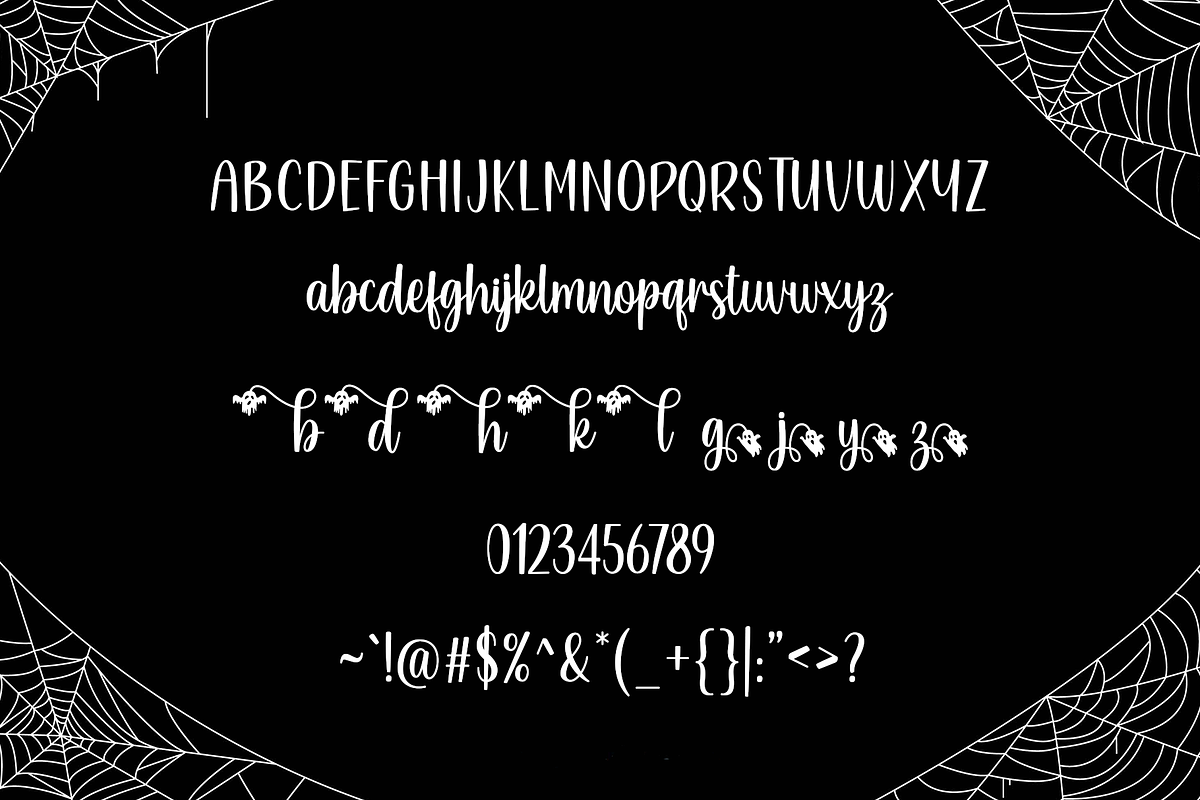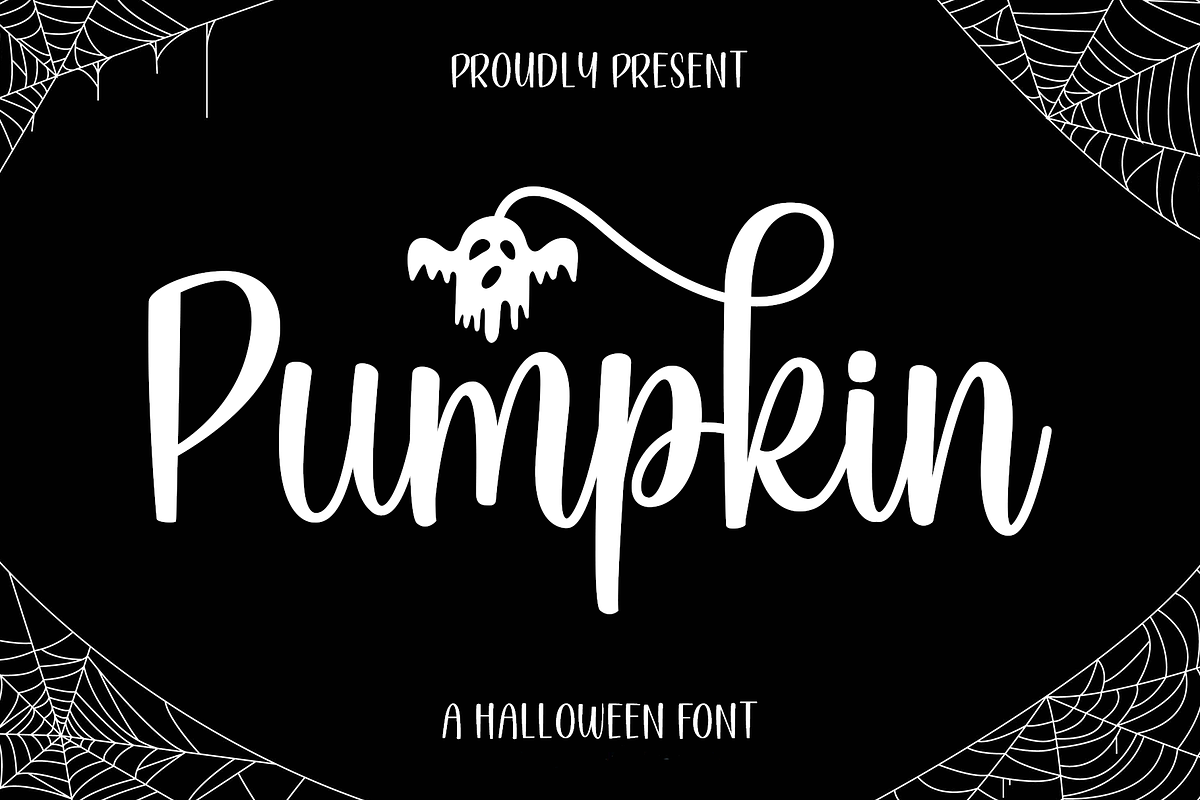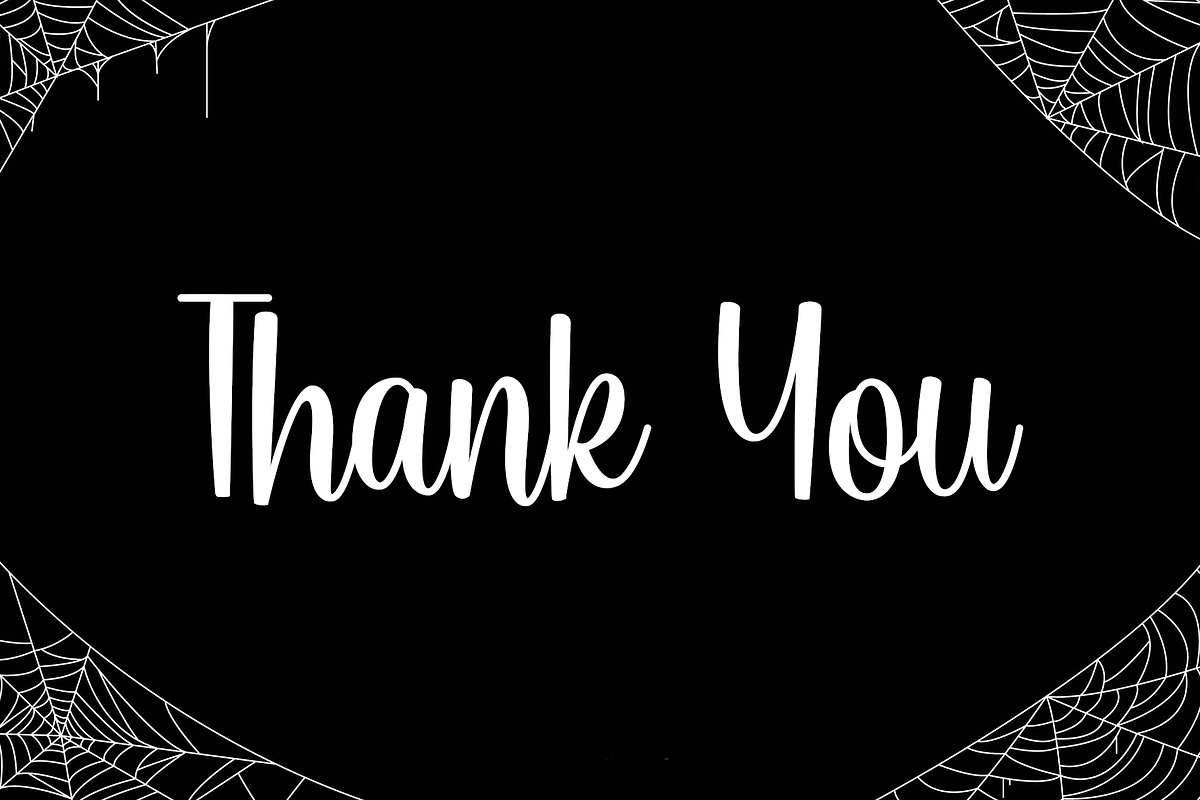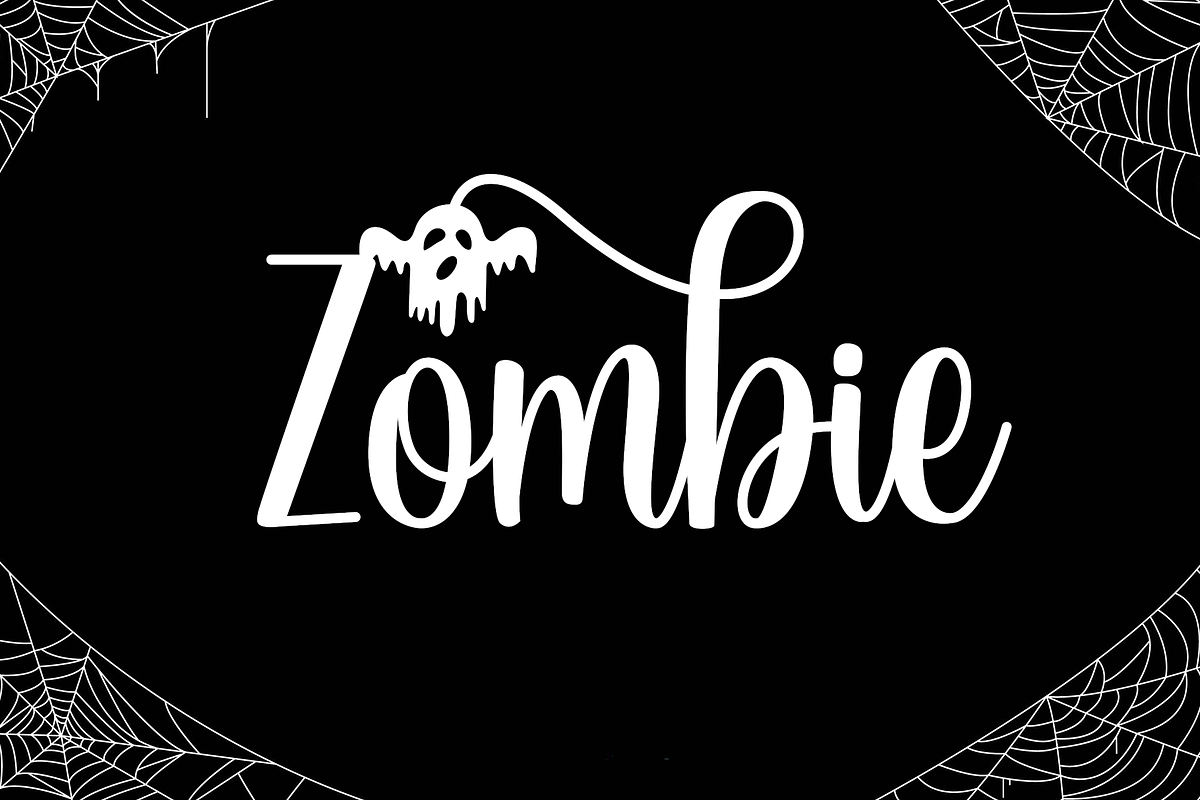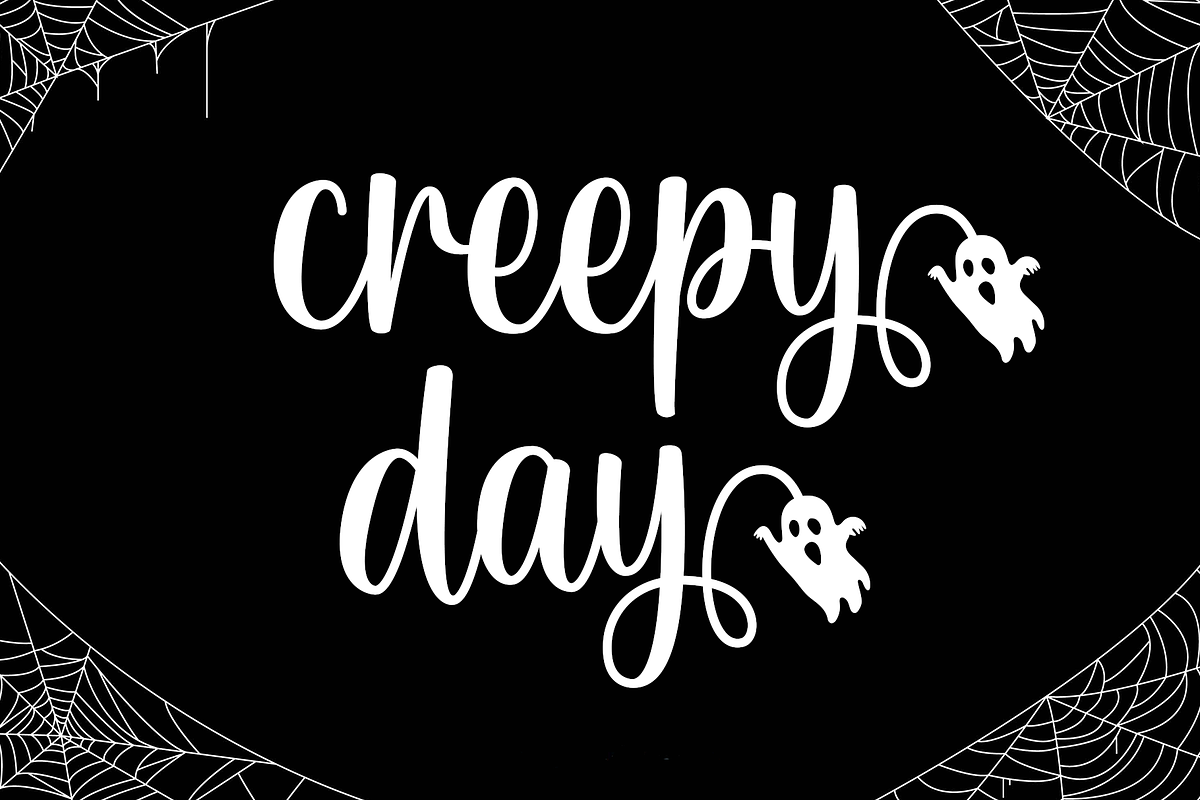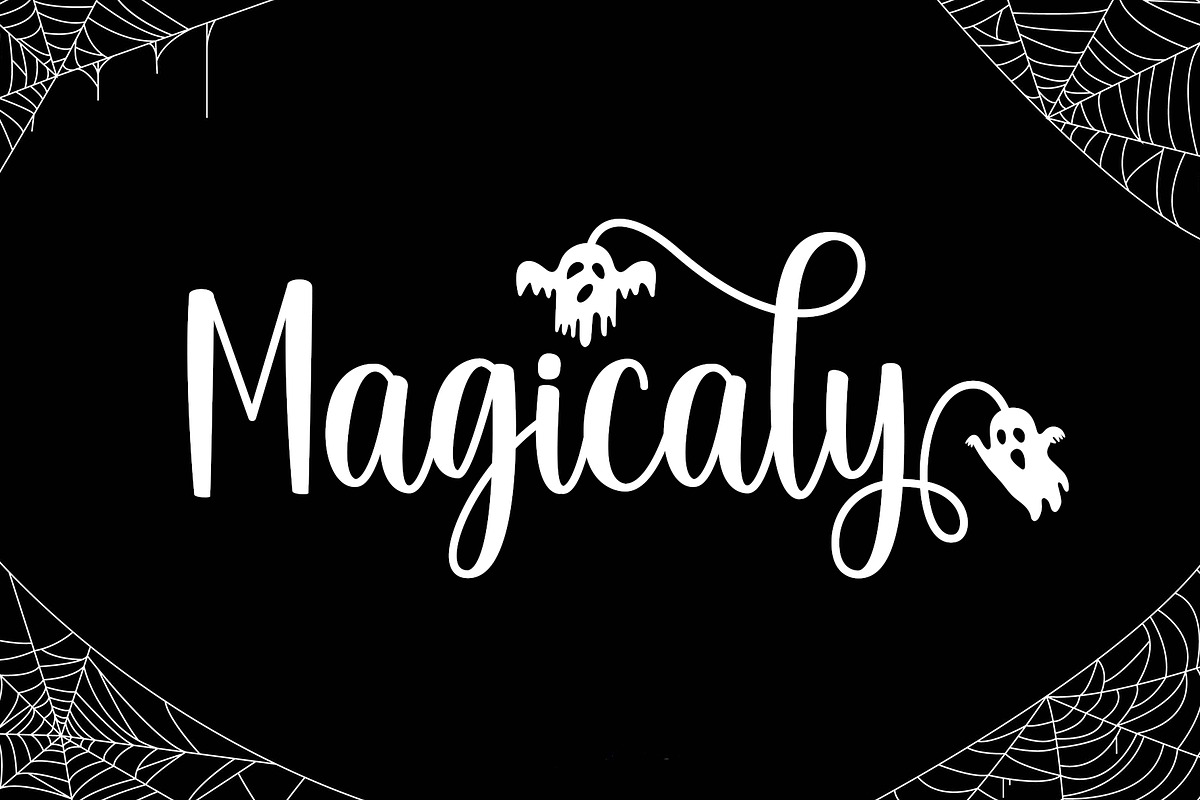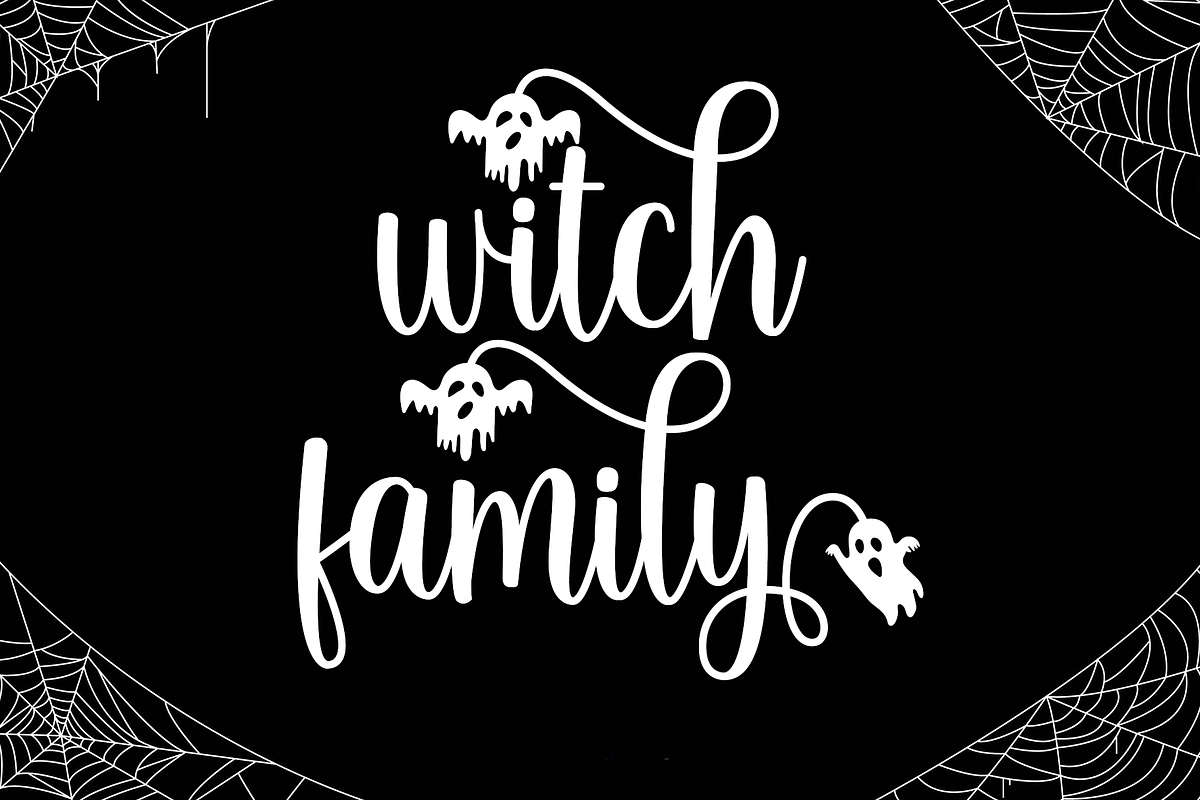
Pumpkin
Introducing Pumpkin, artfully constructed with joyful, handwritten aesthetics and characterized by its whimsical ghost tail. It radiates an irresistible charm and a playful spirit, making it the perfect choice for your designs that require a degree of endearing cuteness. Pumpkin’s design harmoniously blends merriment and creativity, providing an impeccably engaging font experience for users.